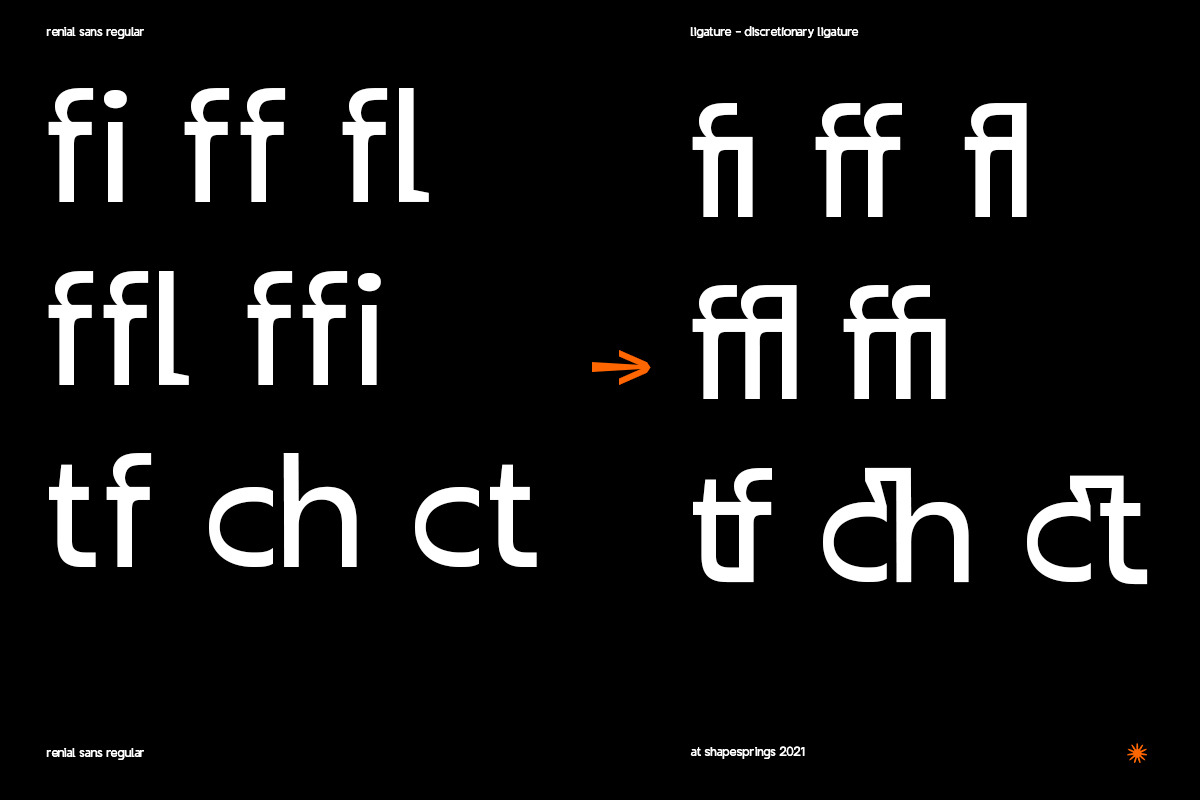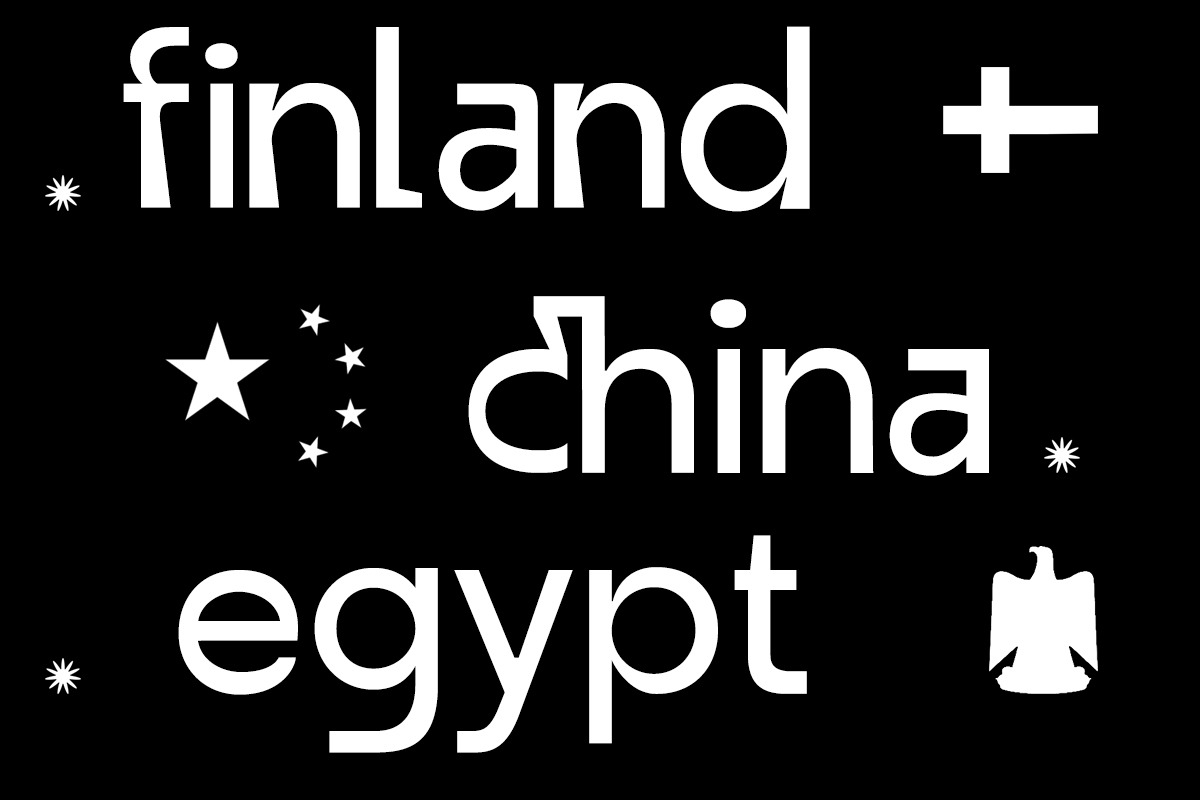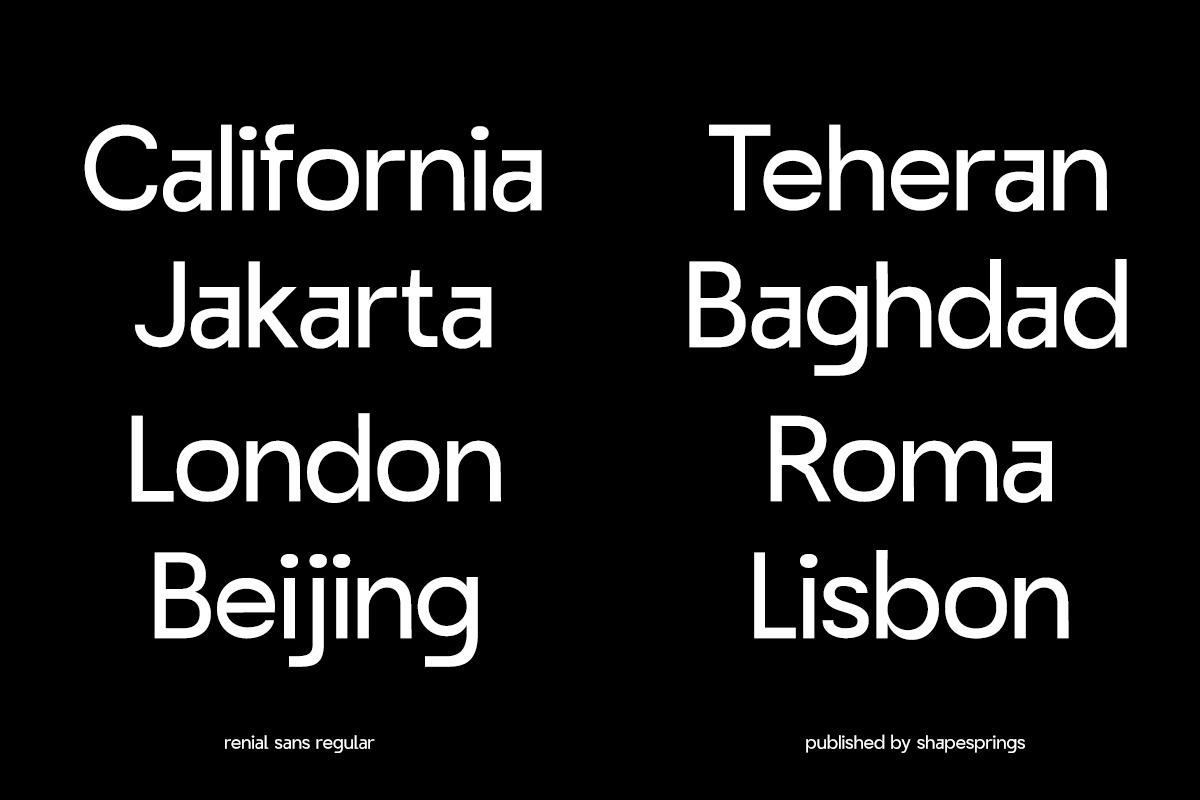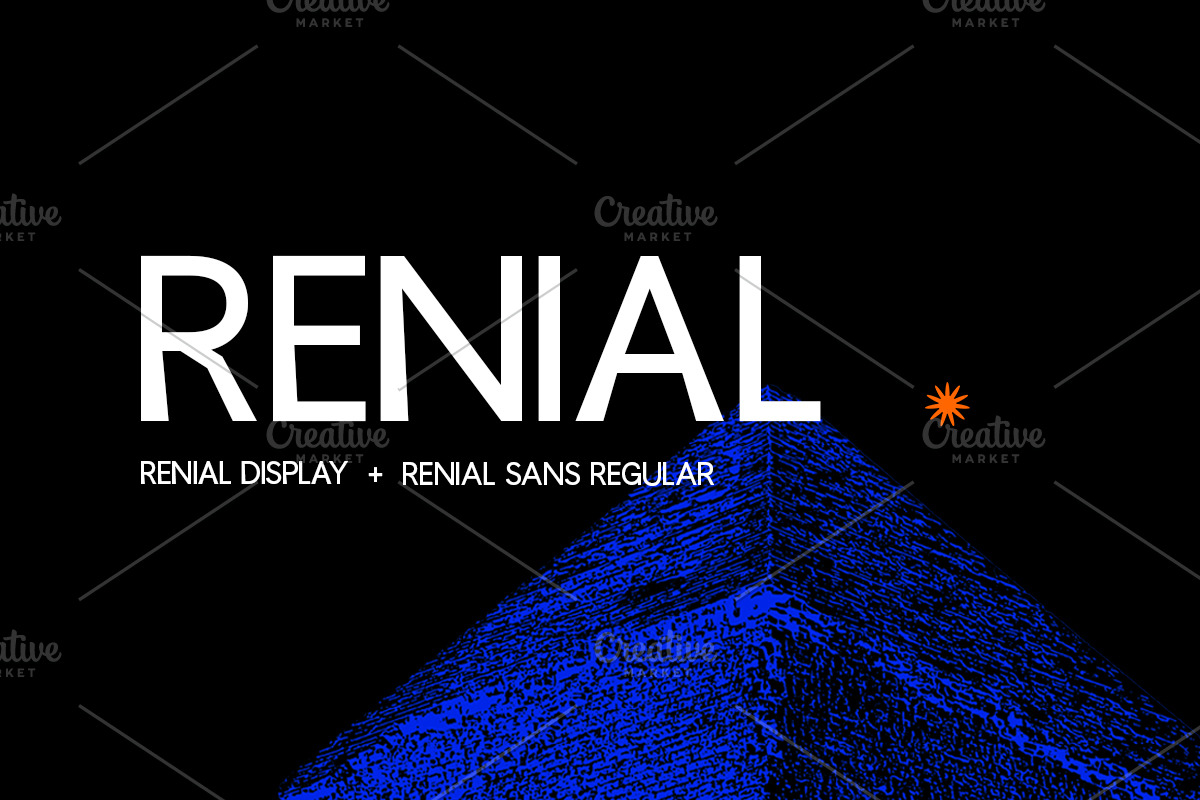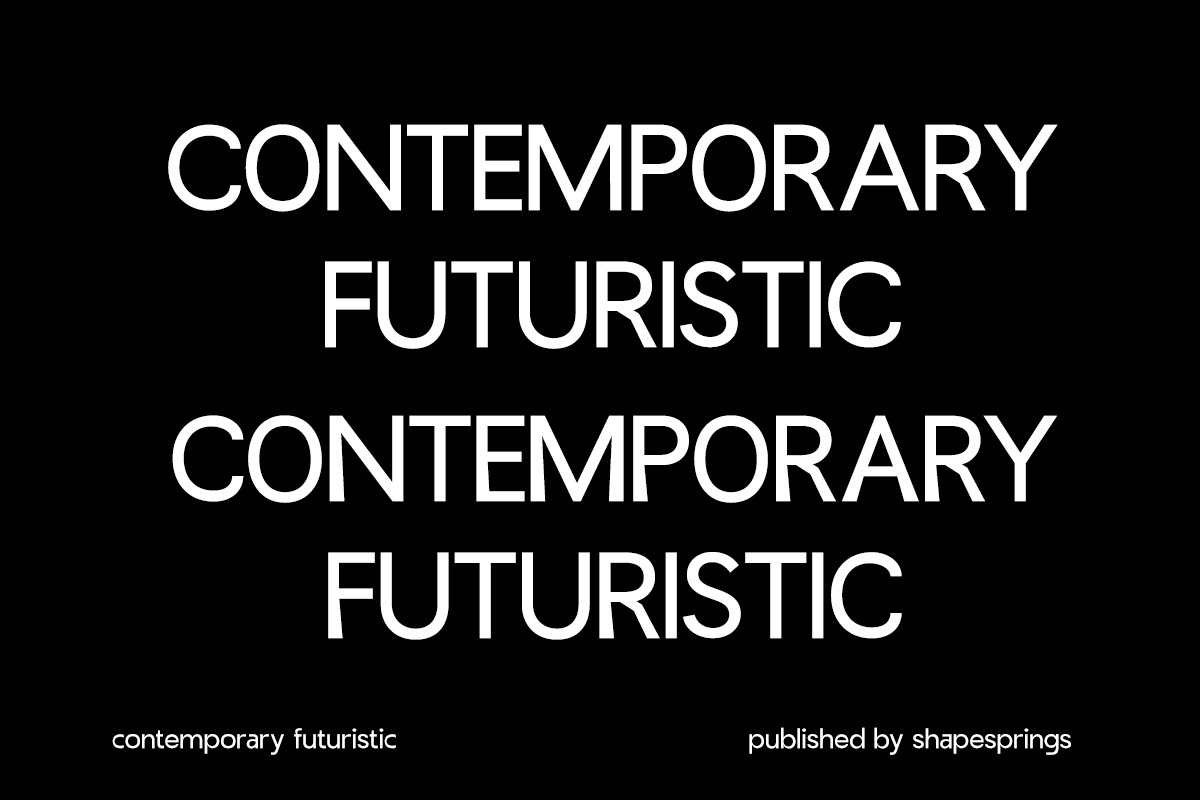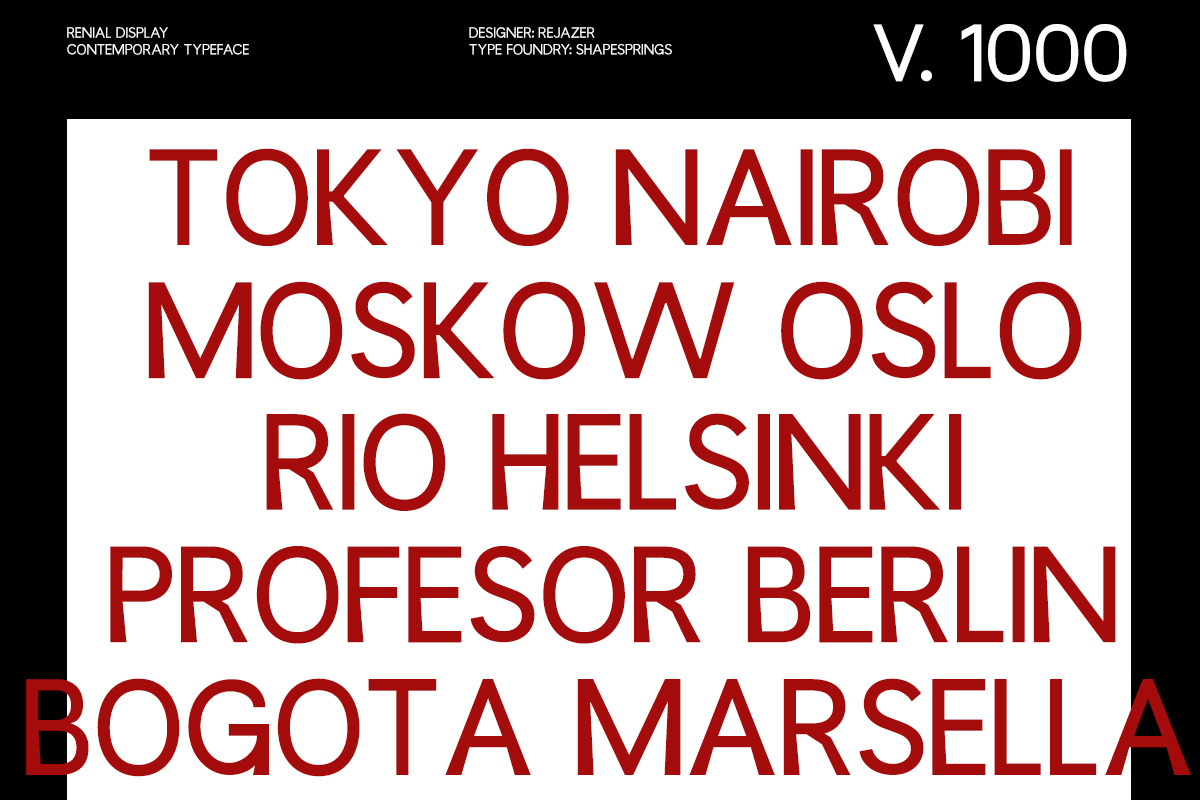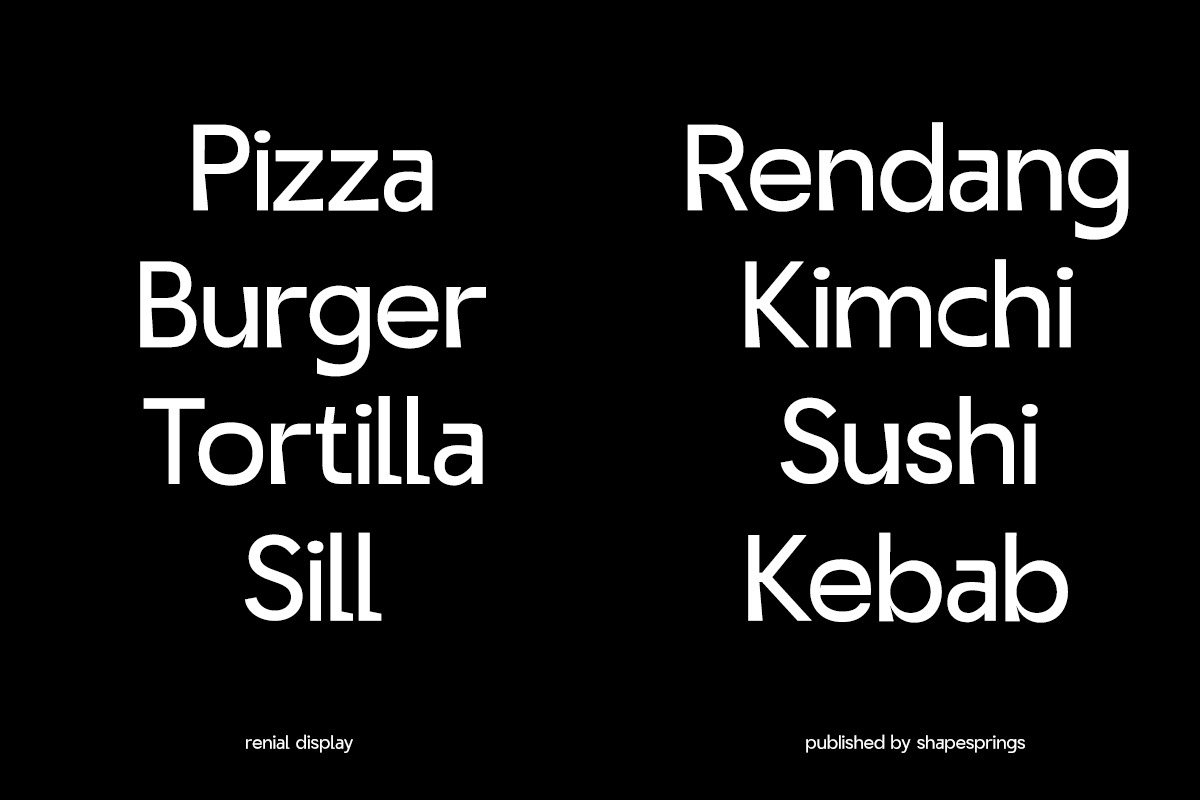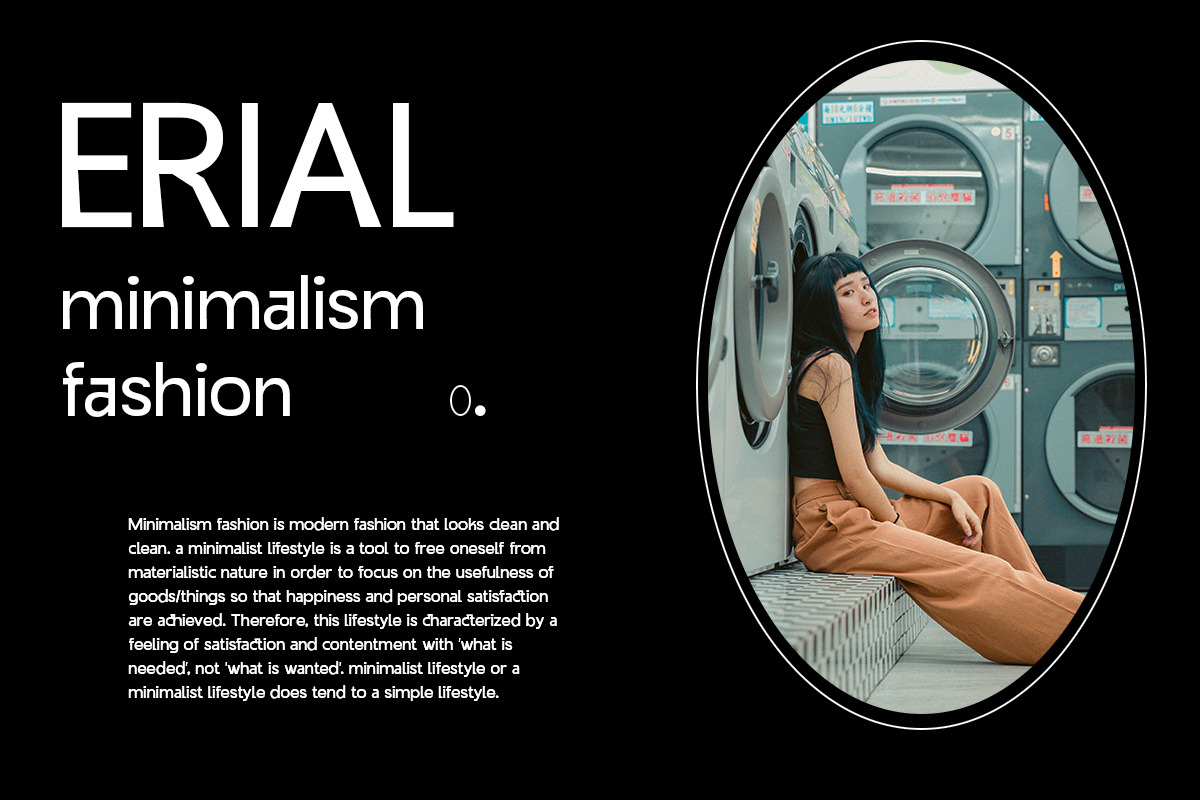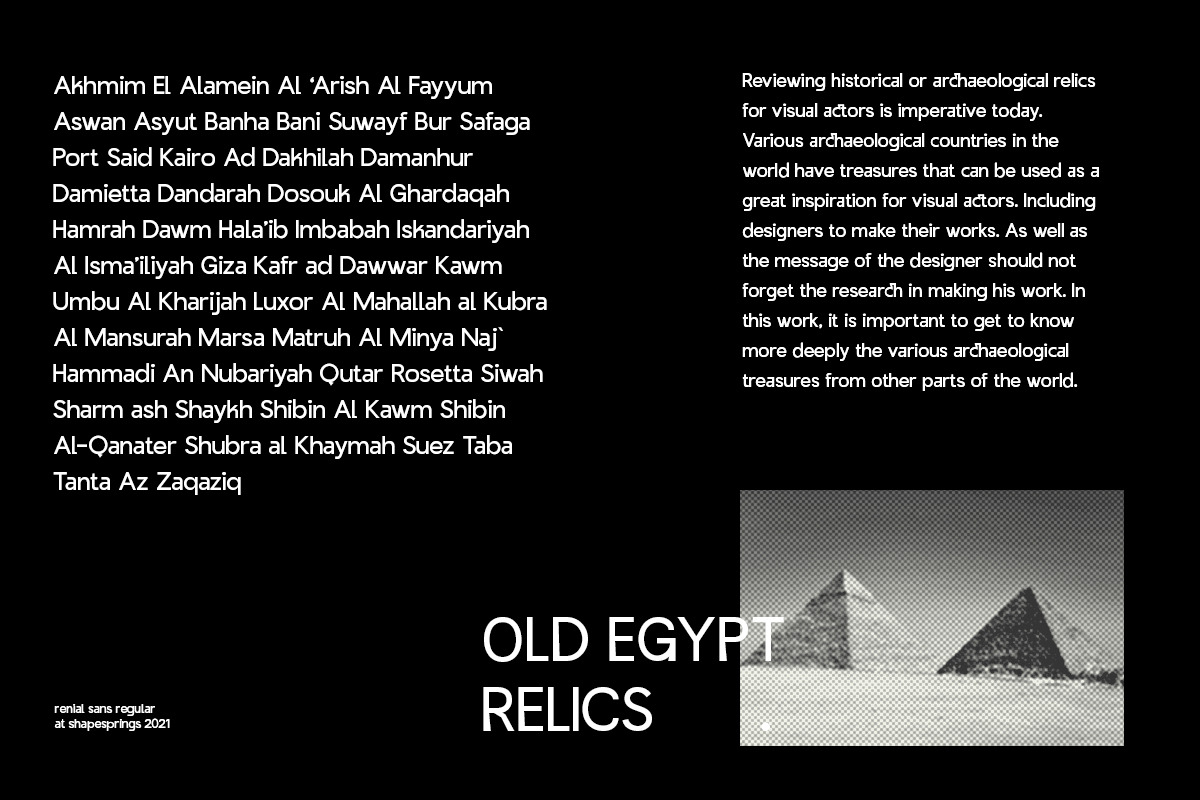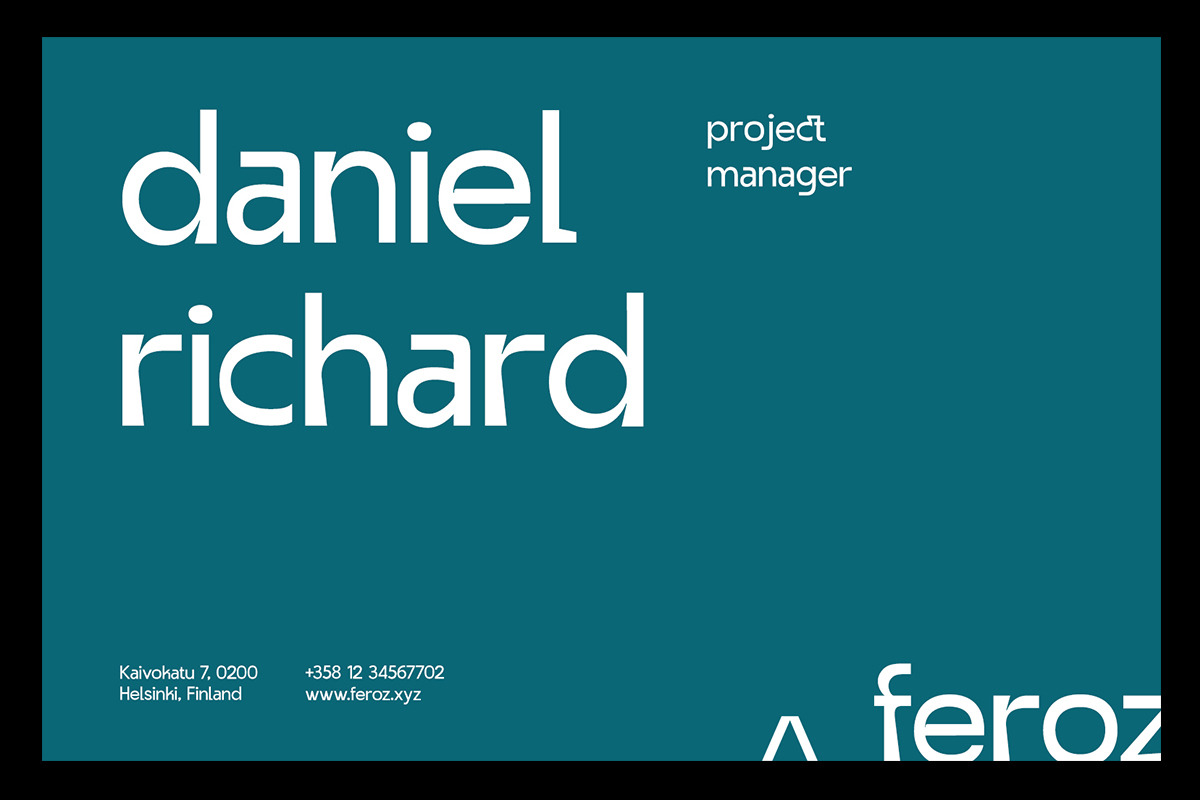
Renial Display
Renial font is a typeface inspired by ancient Egyptian relics. A contemporary typeface with a minimalist and modern approach. This typeface is suitable for poster design, branding, editorial layout and graphic experimental project.
Renial font designed by rejazer and published by shapesprings in 2021. This font can be used properly in ttf, otf, woff & woff2 formats. See the treasures of civilization from various countries including Egypt. With various mythologies of ancient Egyptian gods and historical relics. More specifically, the typeface is designed from ancient Egyptian archaeological forms.
- Full alphabet
- Discretionary ligature
- Numbers, fractions
- Punctuation and symbols